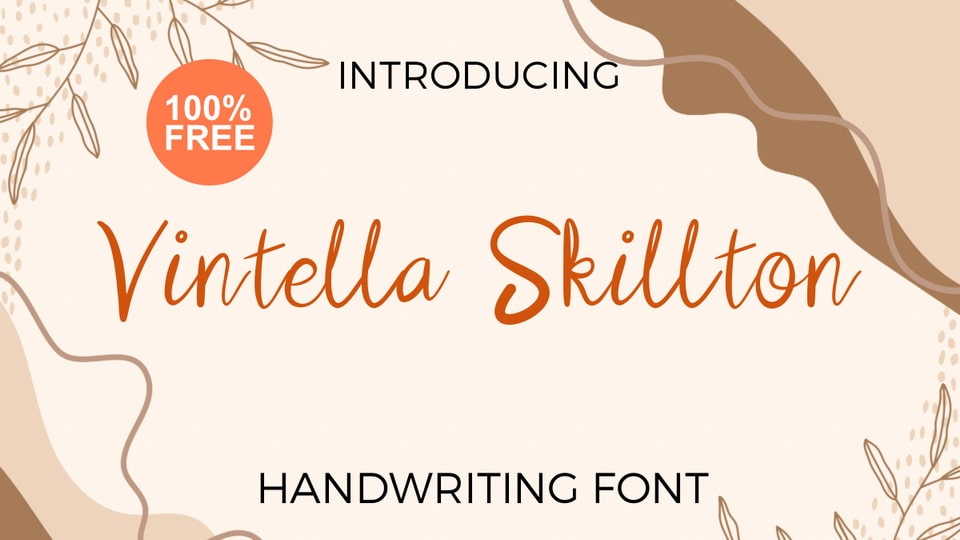
Jan 31, 2025Script & HandwrittenVintella Skillton Font Vintella Skillton is a lovely font with a handwritten style, which has a natural texture that can complement and make your design even more beautiful. Font DetailsDesigned by: Perkasya AkramWebsiteLicense: Free for commercial use Download Vintella Skillton FontFile size: 31.32 KBCreated: February 16, 2025Updated: February 16, 2025 Download Explore similar fonts Oldport Script Font Kaflina Oblique Font Casa Lienta Font Western Airo Font Boprura Font Duo Romantic Diary Font # Casual# Hand-drawn# Handwriting